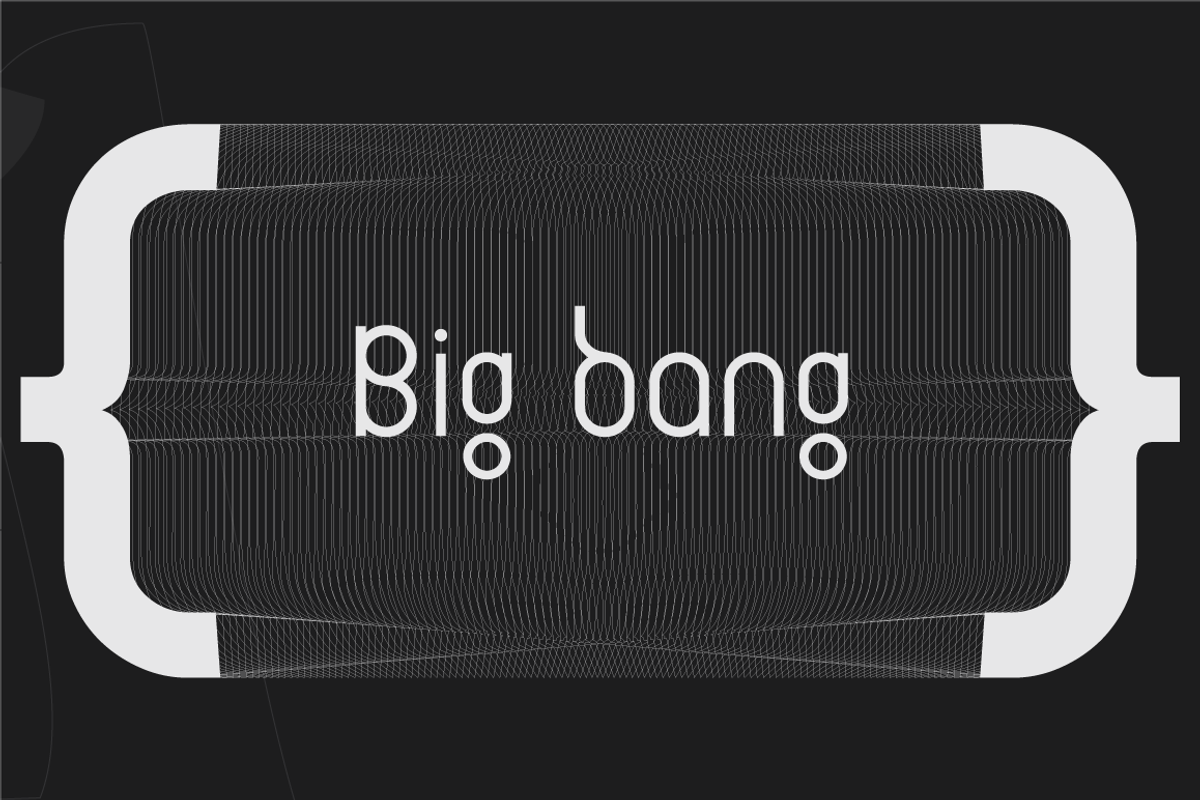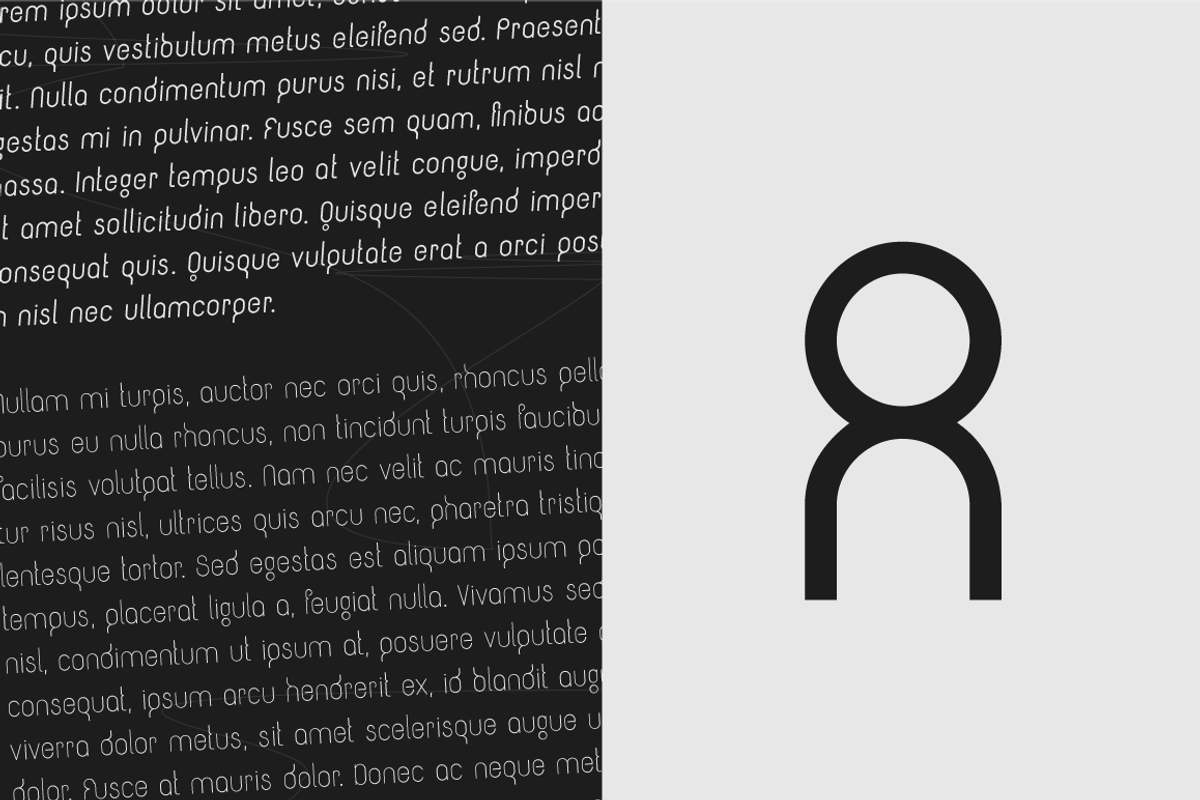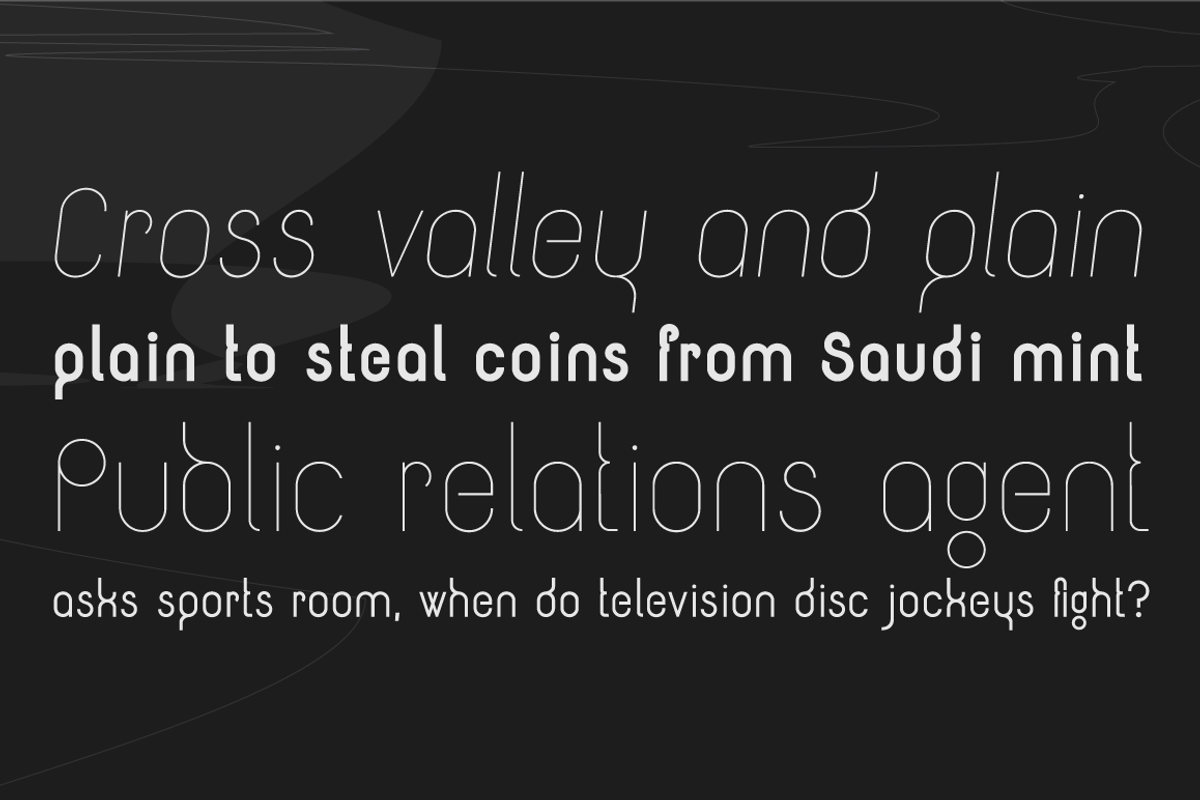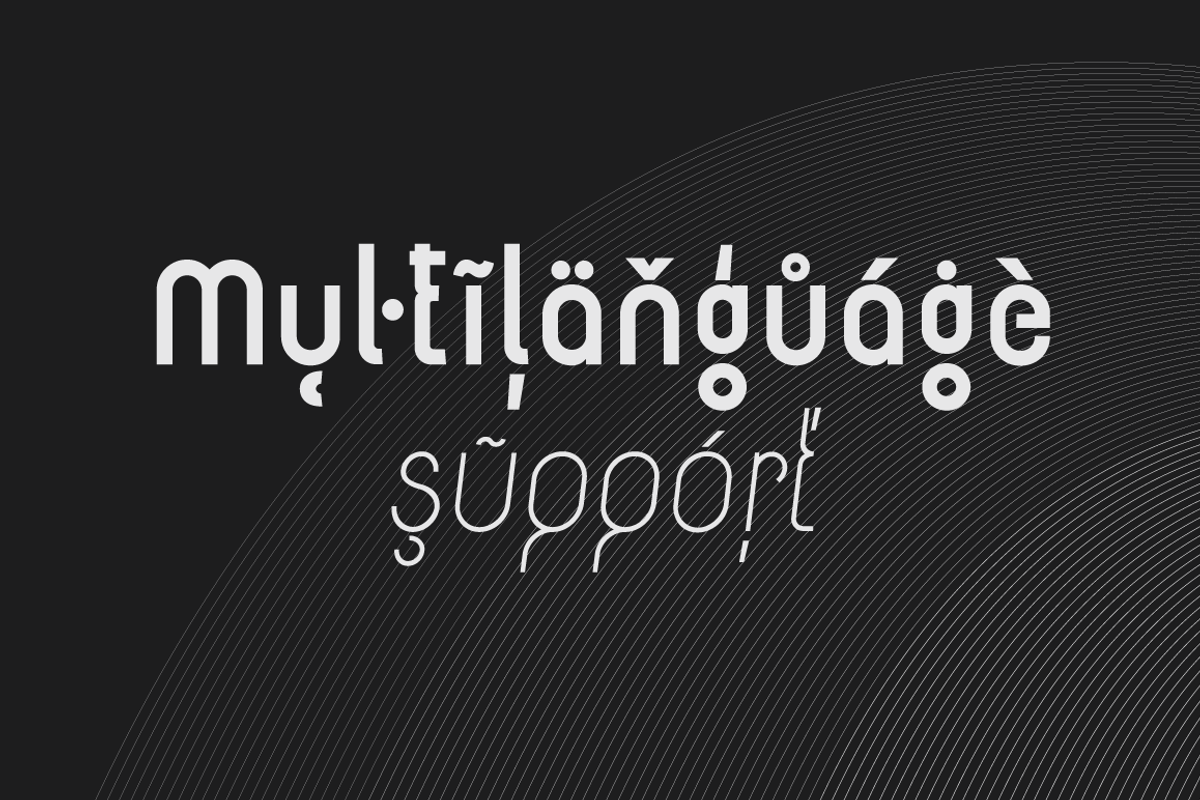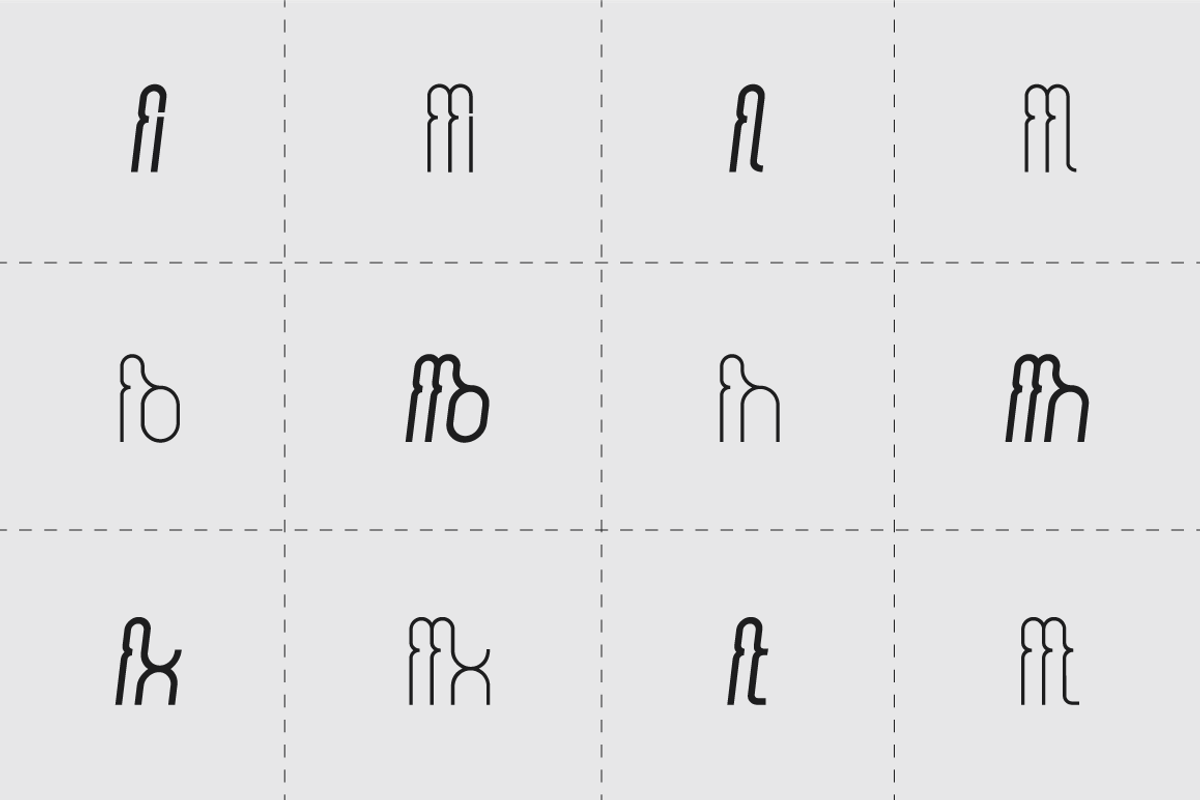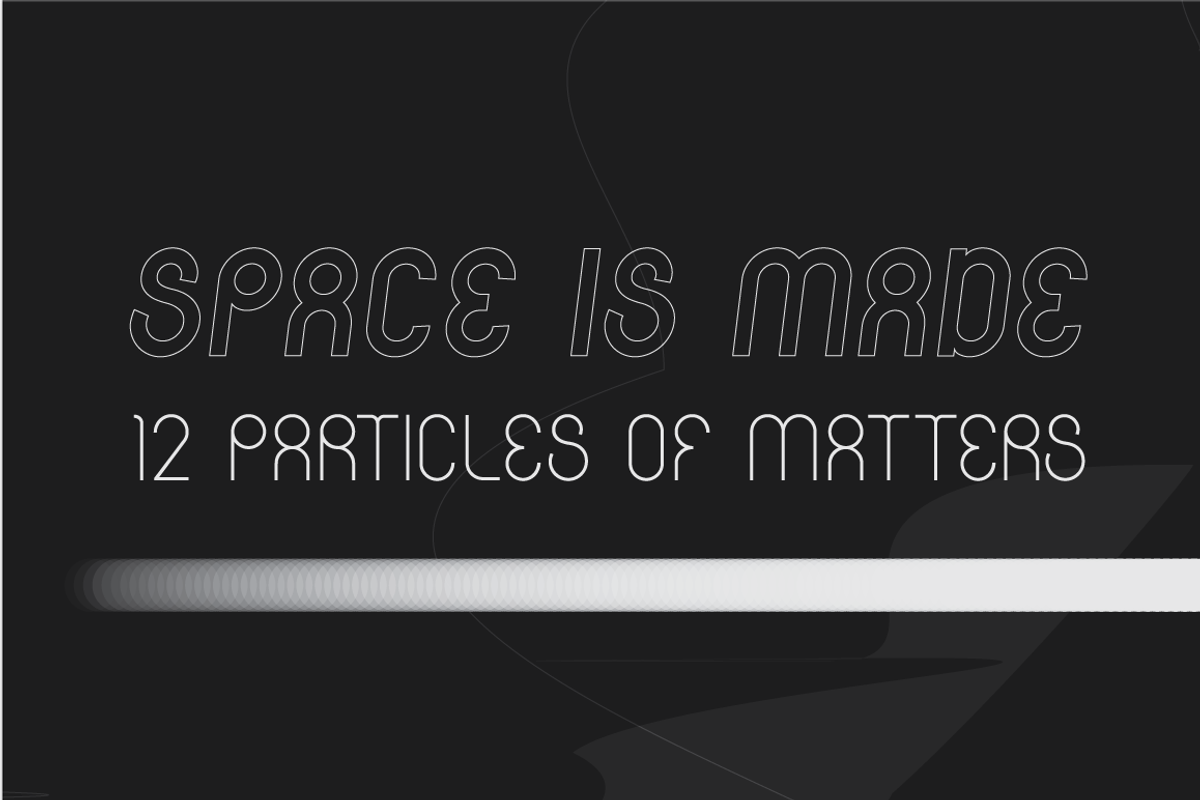
Circularis Alt /family of 8 fonts/
Circularis is characterized by the nice and smooth unordinary circle geometric contruction inspired at last century, nice readability, low price and finaly many variation of useful.
8 fonts of Circularis Alt family (Circularis Alt Thin, Circularis Alt Thin italic, Circularis Alt Light, Circularis Alt Light italic, Circularis Alt Regular, Circularis Alt Regular italic, Circularis Alt Bold, Circularis Alt Bold italic)
- The Circularis Alt family includes 1 family, 8 styles and weights - eight uprights with eight italics.
Circularis Alt /family of 8 fonts/ by JAF 34 fits naturally into Branding, posters, packaging, typography.